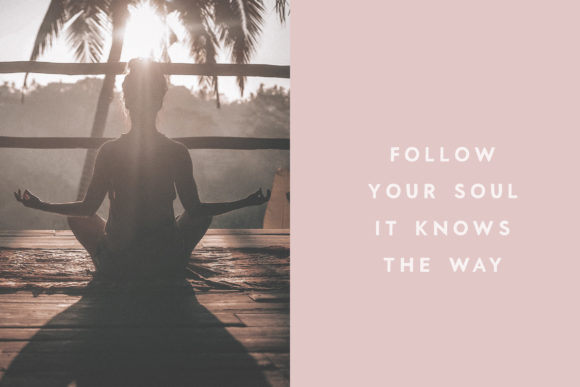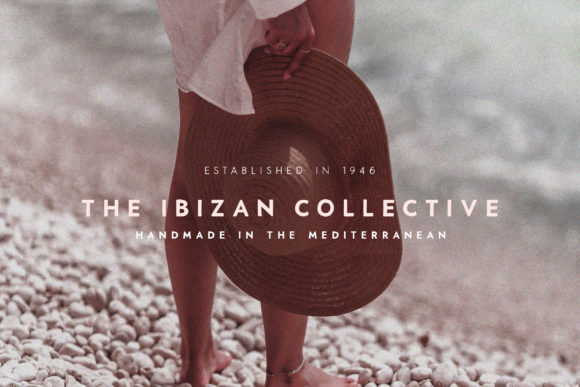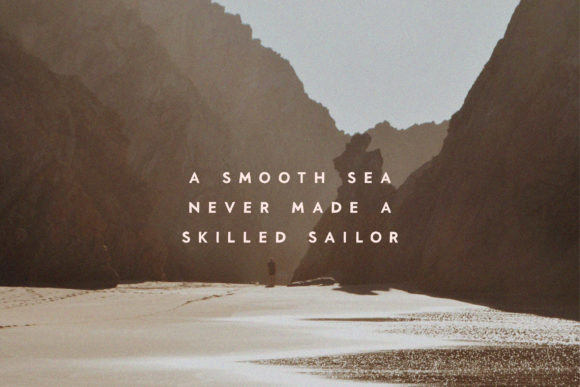
Introduction to Handmade Wanderlust Duo Font
Have you ever stared at a blank canvas, feeling the urge to bring a design to life, but struggling to find the perfect font? You’re not alone. As creatives, we’re constantly on the hunt for the ideal design resource that sets our projects apart. And that’s exactly where the Handmade Wanderlust Duo Font comes in – a stunning duo sans serif font that’s perfect for adding a touch of whimsy to your designs.
Whether you’re working on a cartoon, children’s game, or simply want to add a playful vibe to your next creative project, this font is a game-changer. With its unique blend of thick and thin lines, the Handmade Wanderlust Duo Font is sure to captivate your audience and leave a lasting impression.
Key Features of Handmade Wanderlust Duo Font
- Unique Hand-Drawn Design: This font features a distinctive, hand-drawn design that adds a personal touch to any creative project.
- Perfect for Travel and Adventure Themes: With its unique, hand-drawn design, this font is ideal for travel and adventure-themed projects, such as posters, flyers, and social media graphics.
Honest Review: Handmade Wanderlust Duo Font
As a designer, I’m always on the lookout for unique and high-quality design resources to elevate my creative projects. The Handmade Wanderlust Duo Font is one such resource that caught my attention. Let’s dive into my honest review.
- Unique, hand-drawn design aesthetic that adds a personal touch to any project.
- High-quality fonts with a transparent background, making them easy to use and customize.
- Perfect for travel, adventure, or any creative project that requires a sense of wanderlust.
- Only two fonts are included in the duo, which might not be sufficient for more extensive design projects.
- The fonts are not as versatile as some other high-quality font options, limiting their use in different design contexts.
Overall, the Handmade Wanderlust Duo Font is a great addition to any designer’s toolkit, especially for those working on travel or adventure-themed projects. While it may have some limitations, its unique design and high-quality construction make it a valuable resource for any creative project.
The Handmade Wanderlust Duo Font is perfect for designing travel-inspired posters, social media graphics, and blog headers. Its high-quality design makes it an excellent choice for creative projects that require a unique and eye-catching font.